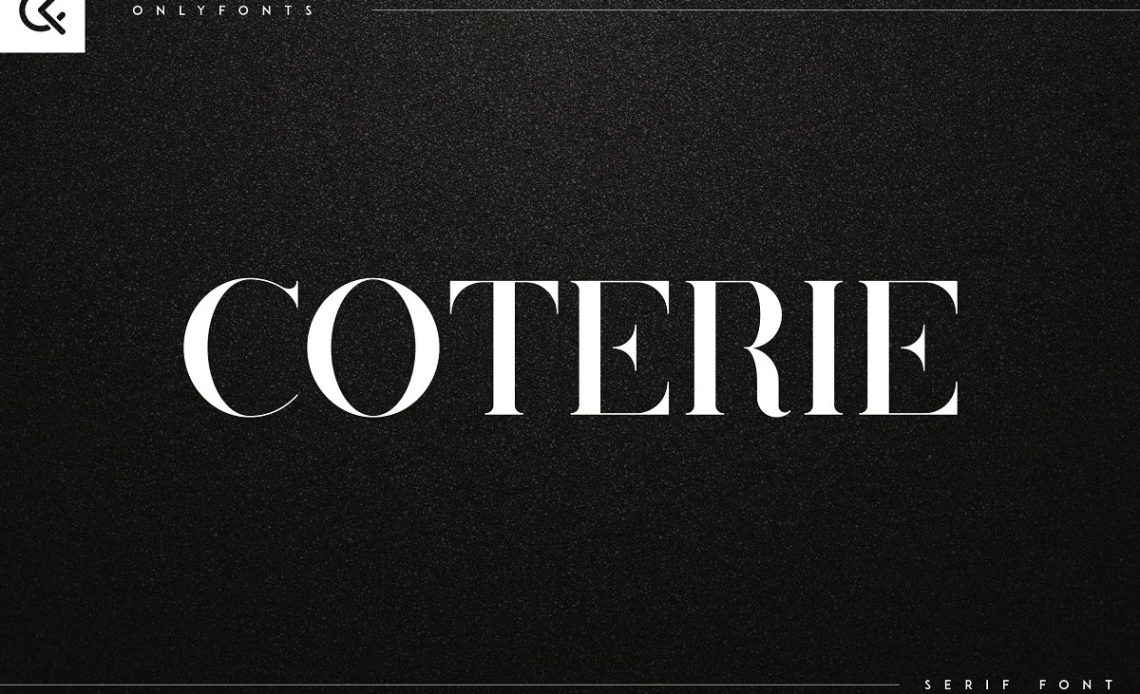
Introducing Coterie - the perfect font to elevate your website header and captivate your audience. Created by the talented Plamen Petrov, this elegant serif font is a must-have for any designer or creative individual looking to make a statement.
Coterie is more than just a font; it is a work of art. With its delicate and fragile strokes, it exudes elegance and sophistication, adding a touch of class to any project. Whether you're working on branding projects, home-ware designs, product packaging, or magazine headers, Coterie will elevate your work to a whole new level.
One of the standout features of Coterie is its versatility. It seamlessly adapts to both large and small sizes, ensuring that your text remains clear and readable in any context. This means you can use Coterie for anything from bold headlines to subtle text overlays on background images - the possibilities are endless!
But Coterie doesn't just look good; it also performs flawlessly. With support for multiple languages, you can communicate your message to a global audience without any limitations. Plus, there's no need for any special software to access the standard characters of the typeface. It's user-friendly and compatible with popular design tools like Canva, making it even easier to bring your vision to life.
When you choose Coterie, you're not just getting a font; you're getting an experience. It's the little details that set Coterie apart, from the meticulously crafted uppercase, numeral, punctuation, and symbol characters to the thoughtfully designed multilingual support.